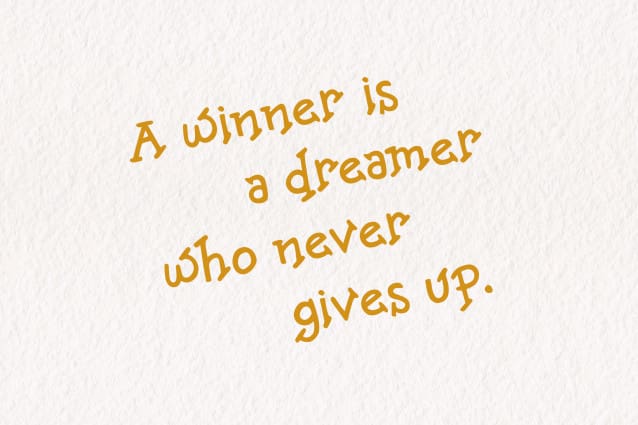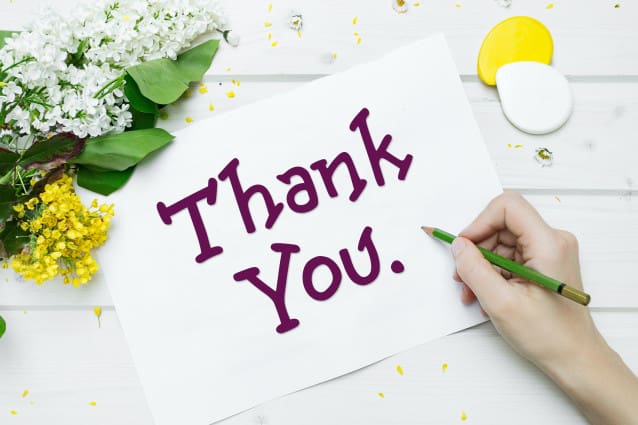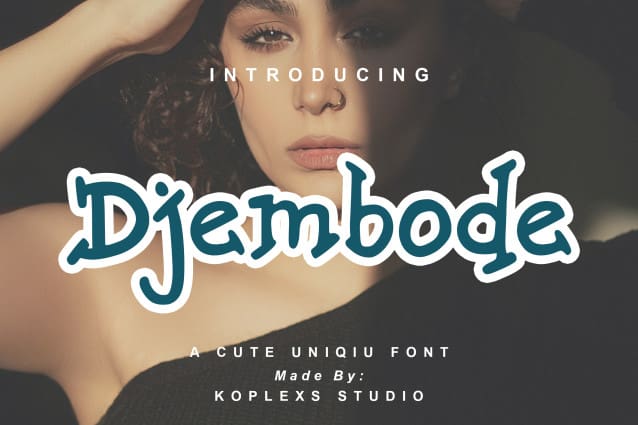
Djembode Cute Font
Djembode Cute Font is a unique handwriting font. Perfect for cute and cute kids. But that’s not all, Djembode can also be used for quotes, book covers, posters, flyers, social media posts, and more 🙂